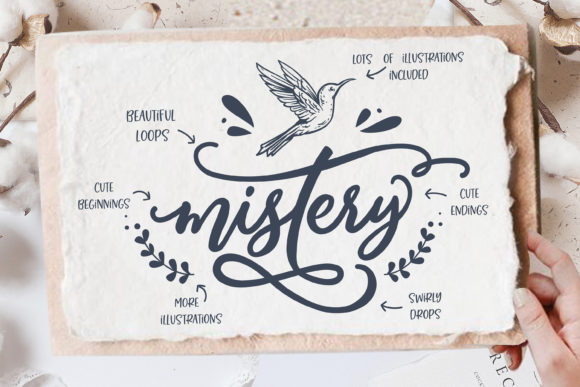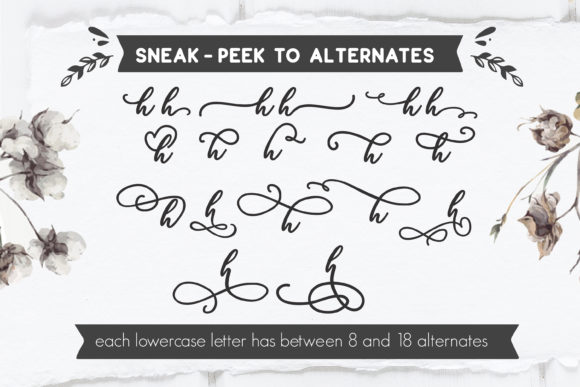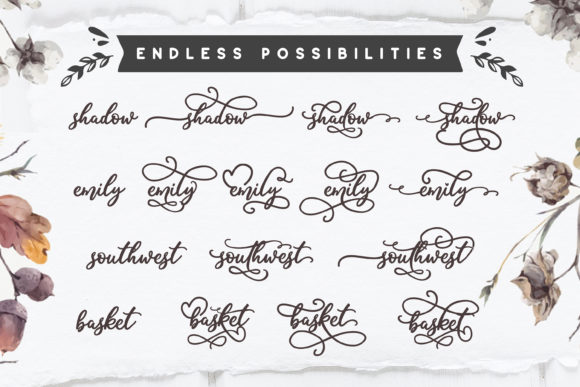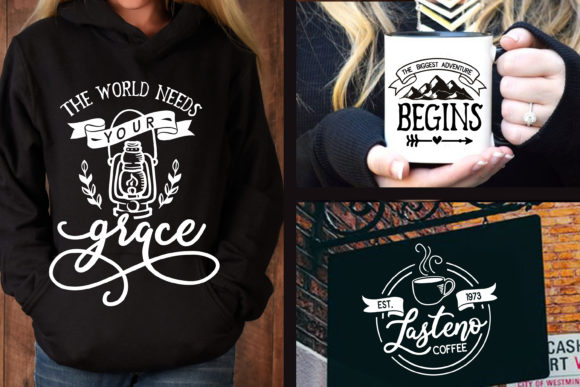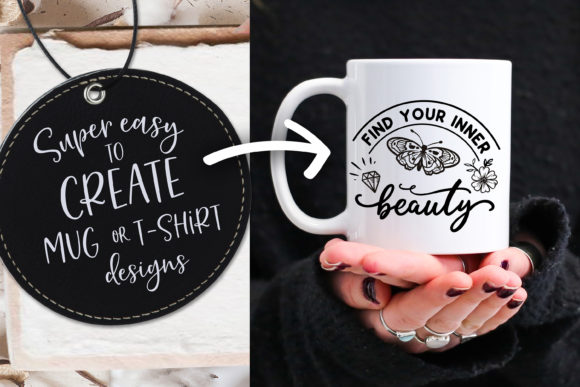
Biosha Font: Elevate Your Design with a Stunning Handwritten Style
Are you looking for a font that can add a touch of elegance and sophistication to your design projects? Look no further than Biosha Font, a beautiful and stunning handwritten font that is sure to inspire. With its incredibly lovely feel and authentic vibe, Biosha Font is the perfect choice for designers and crafters who want to create standout designs that capture attention.
The Beauty of Biosha Font
Biosha Font is a handwritten font that exudes a sense of warmth and personality. Its unique and authentic style is reminiscent of handwritten scripts, making it perfect for designs that require a personal touch. The font’s beautiful strokes and curves create a sense of fluidity and movement, adding a dynamic feel to any design.
Key Features of Biosha Font
• Handwritten style: Biosha Font is a genuine handwritten font that captures the essence of personal writing.
• Unique and authentic vibe: The font’s distinctive style sets it apart from other fonts, making it perfect for designs that require a unique touch.
• Lovely feel: Biosha Font has an incredibly lovely feel that is sure to inspire and elevate your designs.
• Versatile: The font is suitable for a wide range of design projects, from branding and advertising to packaging and digital media.
Why Choose Biosha Font?
There are many reasons why Biosha Font stands out from other fonts. Here are just a few:
• Elegance and sophistication: Biosha Font adds a touch of elegance and sophistication to any design, making it perfect for high-end brands and luxury products.
• Emotional connection: The font’s handwritten style creates an emotional connection with the reader, making it perfect for designs that require a personal touch.
• Flexibility: Biosha Font is suitable for a wide range of design projects, from digital media to print materials.
How to Use Biosha Font in Your Designs
Using Biosha Font in your designs is easy. Here are a few tips to get you started:
• Branding and advertising: Use Biosha Font to create stunning brand identities and advertising campaigns that capture attention.
• Packaging design: Add a touch of elegance and sophistication to your packaging designs with Biosha Font.
• Digital media: Use Biosha Font to create engaging digital media, such as social media graphics and blog posts.
Tips for Pairing Biosha Font with Other Fonts
Pairing Biosha Font with other fonts can create a stunning visual effect. Here are a few tips to get you started:
• Contrasting fonts: Pair Biosha Font with contrasting fonts, such as sans-serif fonts, to create a visually appealing effect.
• Script fonts: Pair Biosha Font with other script fonts to create a cohesive and elegant look.
• Experiment with font sizes: Experiment with different font sizes to create a visually appealing hierarchy.
Biosha Font is a stunning handwritten font that is sure to elevate your design projects. With its unique and authentic style, lovely feel, and versatility, Biosha Font is the perfect choice for designers and crafters who want to create standout designs. Whether you’re working on a branding project, packaging design, or digital media, Biosha Font is sure to inspire and capture attention.
Get Inspired with Biosha Font